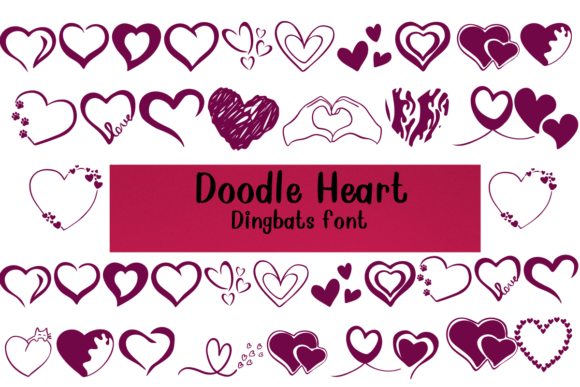
Where Creativity Meets Whimsy: The Doodle Heart Font
Have you ever stared at a blank page, waiting for inspiration to strike? Maybe you’re brainstorming ideas for a special project, or perhaps you’re simply looking for a way to add a personal touch to your designs. Whatever the case, I’m sure you’ve experienced that moment when a spark of creativity ignites, and suddenly, your imagination runs wild.
That’s exactly what happens when you discover the Doodle Heart Font – a delightful, hand-drawn font that brings a touch of playfulness to your projects. This charming font is perfect for adding a dash of love and whimsy to your messages, making it a valuable tool for designers looking to create unique and memorable designs. With its adorable doodles and hearts, the Doodle Heart Font is sure to make your projects stand out from the crowd.
Doodle Heart Font Key Features
- Unique Characteristics: The Doodle Heart Font features a playful, hand-drawn design with intricate details and a whimsical feel, making it perfect for adding a touch of personality to your designs.
- Character Set: The font includes a comprehensive set of characters, including uppercase and lowercase letters, numbers, punctuation marks, and symbols, ensuring that you have everything you need to create professional-looking designs.
Doodle Heart Font Review
I was excited to dive into the “Doodle Heart Font” and see what it had to offer. As a designer, I appreciate unique and playful fonts that can add a personal touch to projects. ✨ The first thing that caught my eye was the hand-drawn feel of this font, which makes it perfect for creating a whimsical and romantic atmosphere.
Here are some of the things that I liked about the font:
- ✨ Wide range of characters: The font includes a variety of characters, including uppercase and lowercase letters, numbers, and symbols, making it versatile for use in different contexts.
- ✨ Customizable: The font allows for some customization, such as adjusting the stroke width and color, which gives designers more control over the final result.
- ⚠️ Limited legibility: At smaller font sizes, the hand-drawn feel of the font can make it harder to read, which may be a concern for projects where clear communication is crucial.
- ⚠️ Limited language support: The font may not support all languages, which could be a problem for projects that require multilingual text.
Overall, I think the “Doodle Heart Font” is a great choice for designers looking to add a playful touch to their projects. While it has some limitations, its unique feel and customizable options make it a valuable addition to any designer’s toolkit.
Getting the Most Out of Doodle Heart Font
To get the most out of the Doodle Heart Font, consider the following tips:
- Use it sparingly to add a touch of whimsy to your designs.
- Pair it with solid fonts to create contrast and visual interest.
- Experiment with different font sizes and styles to add depth and dimension.
The Doodle Heart Font is ideal for:
- Valentine’s Day and wedding invitations.